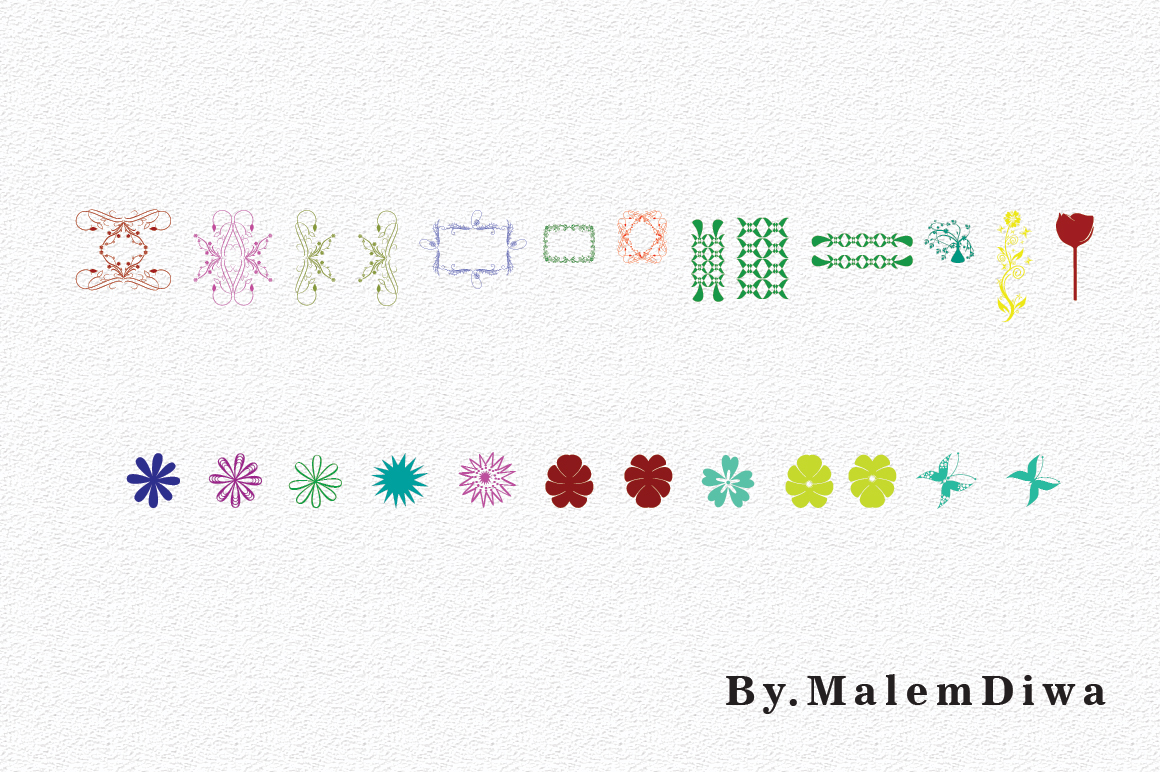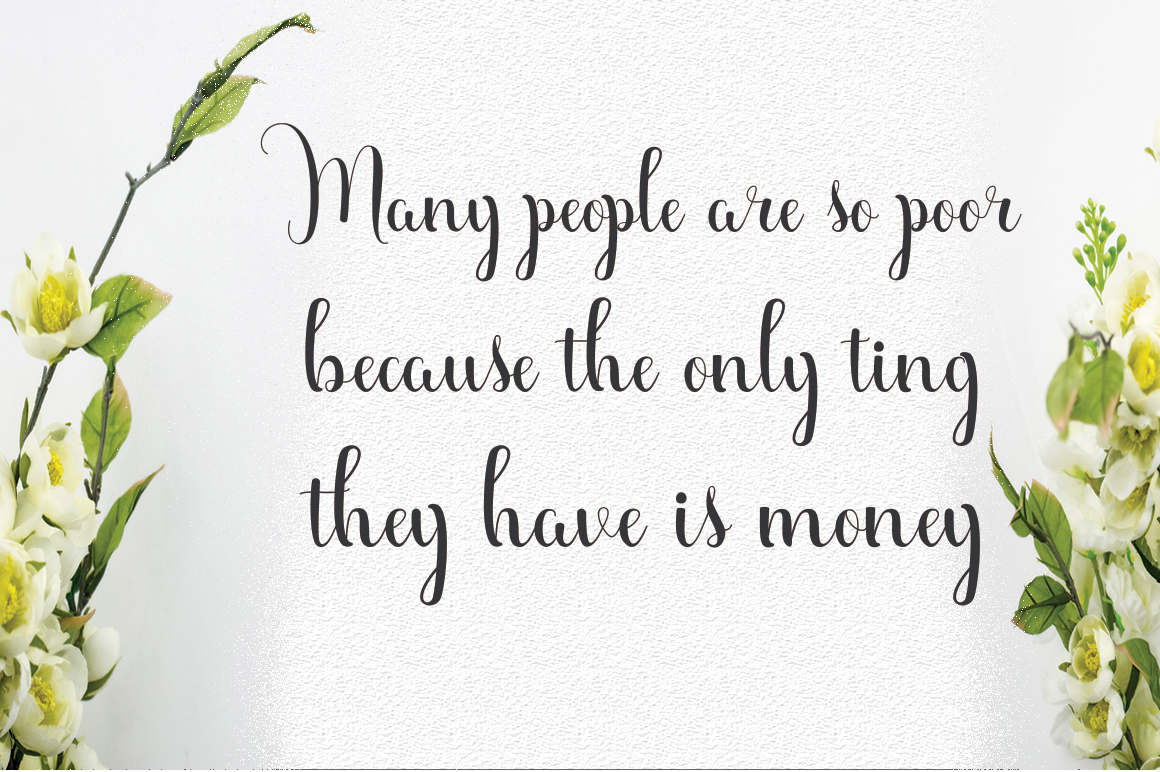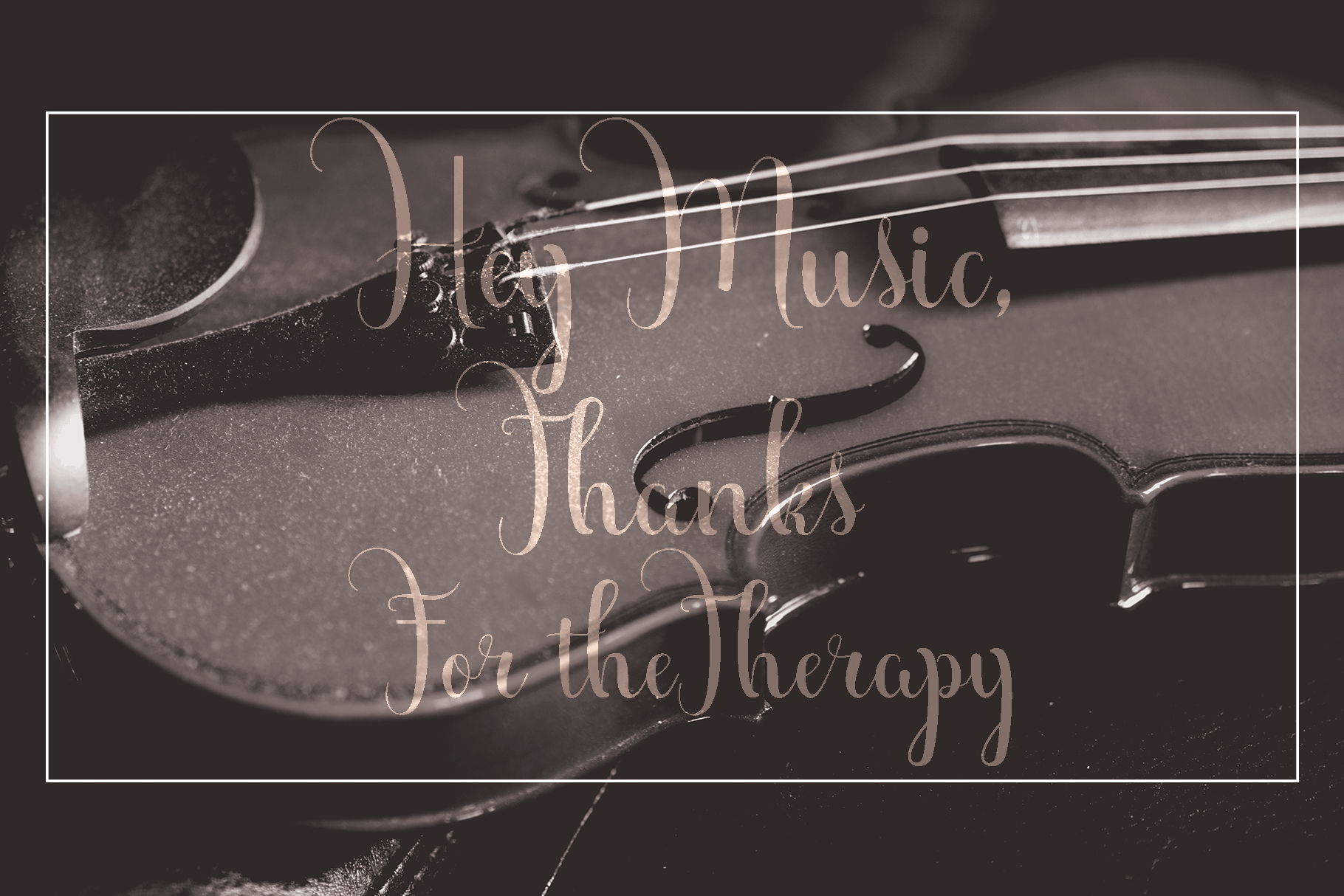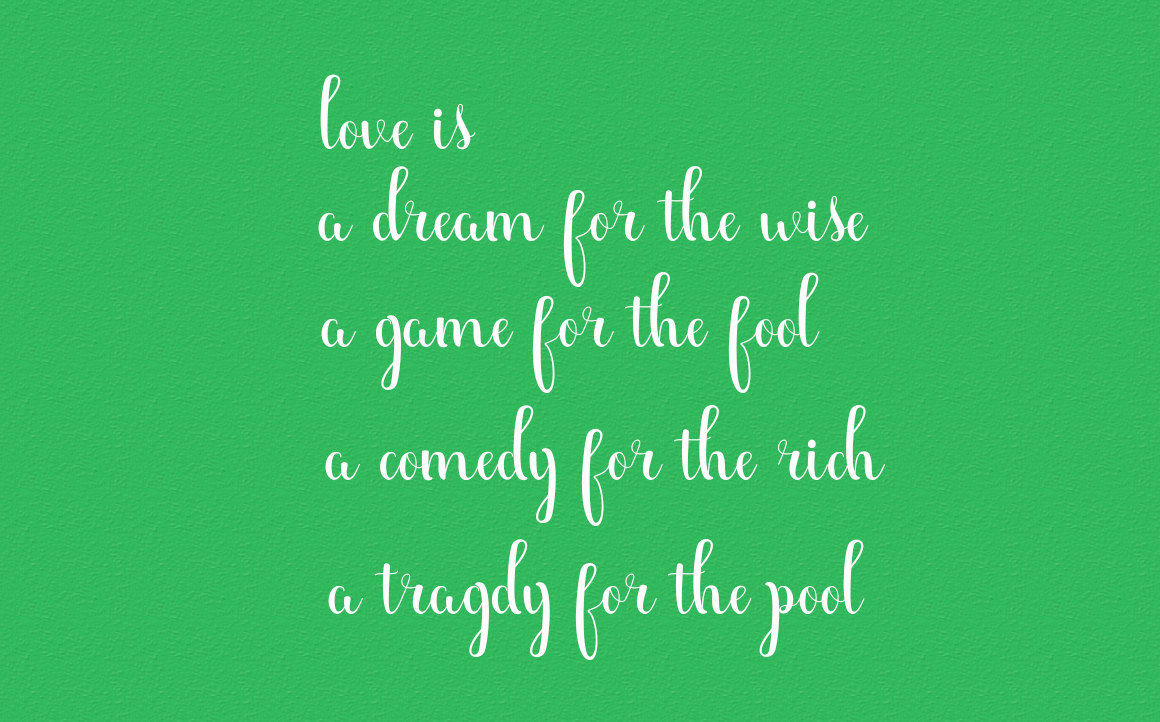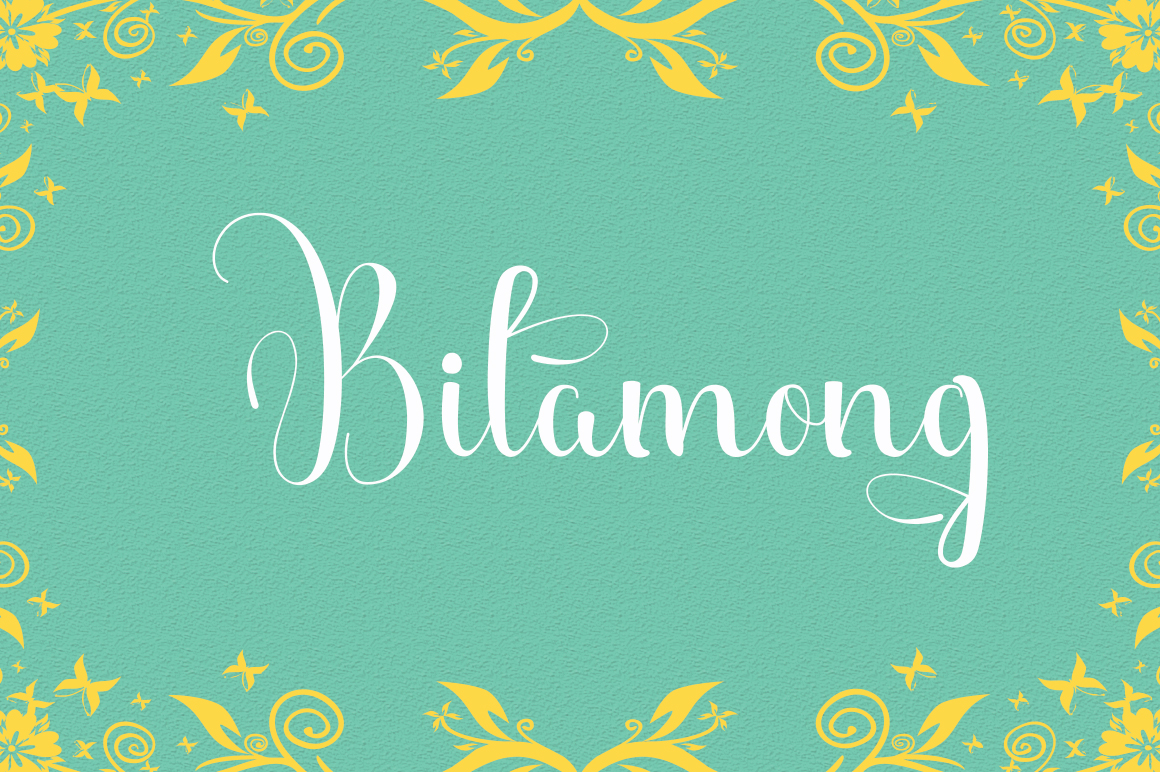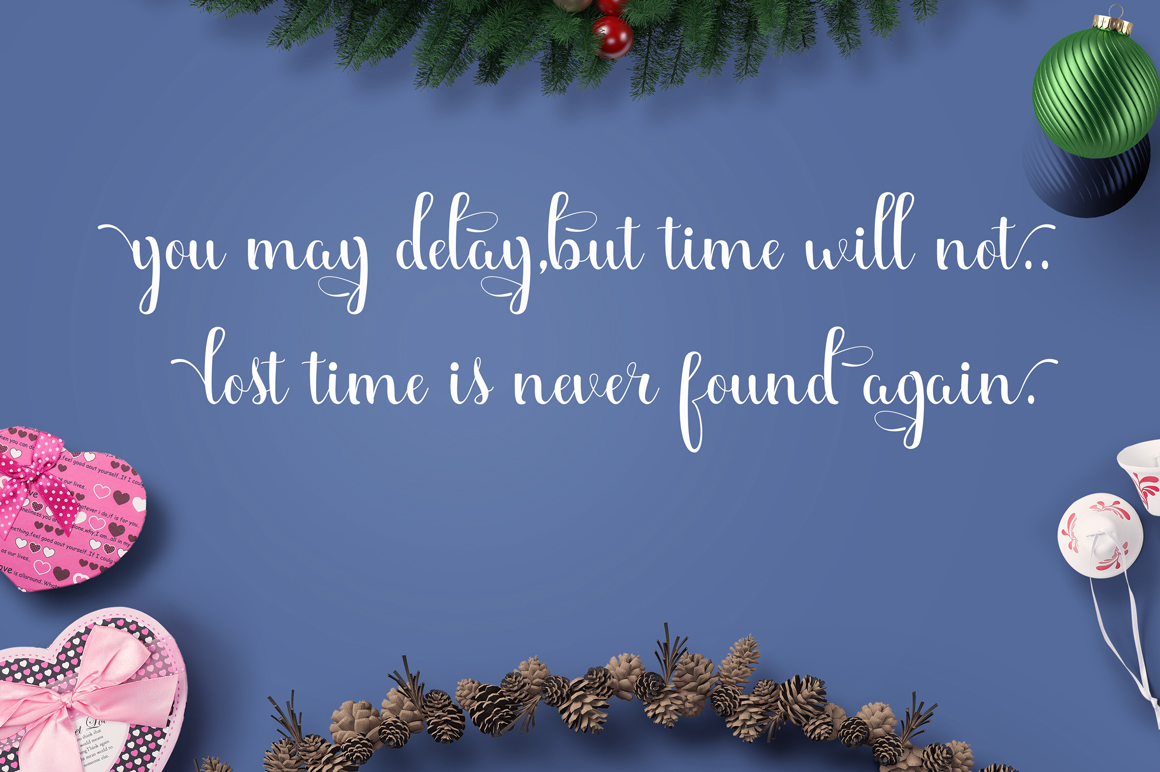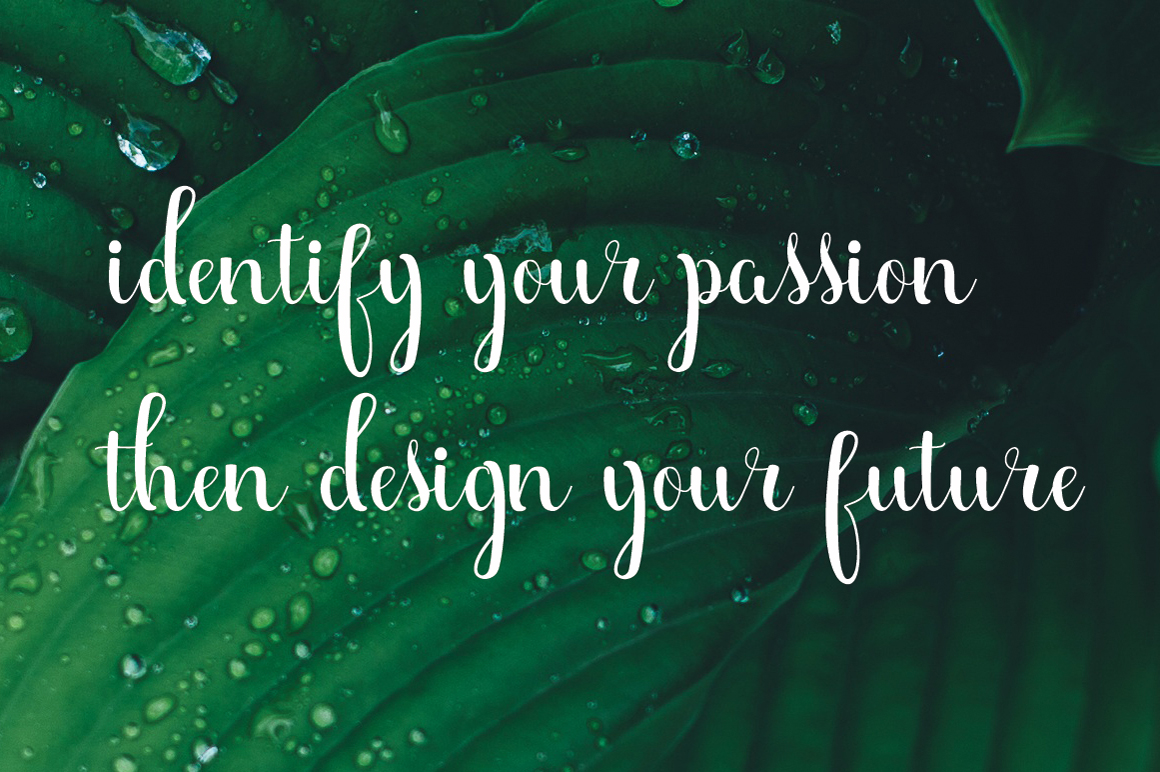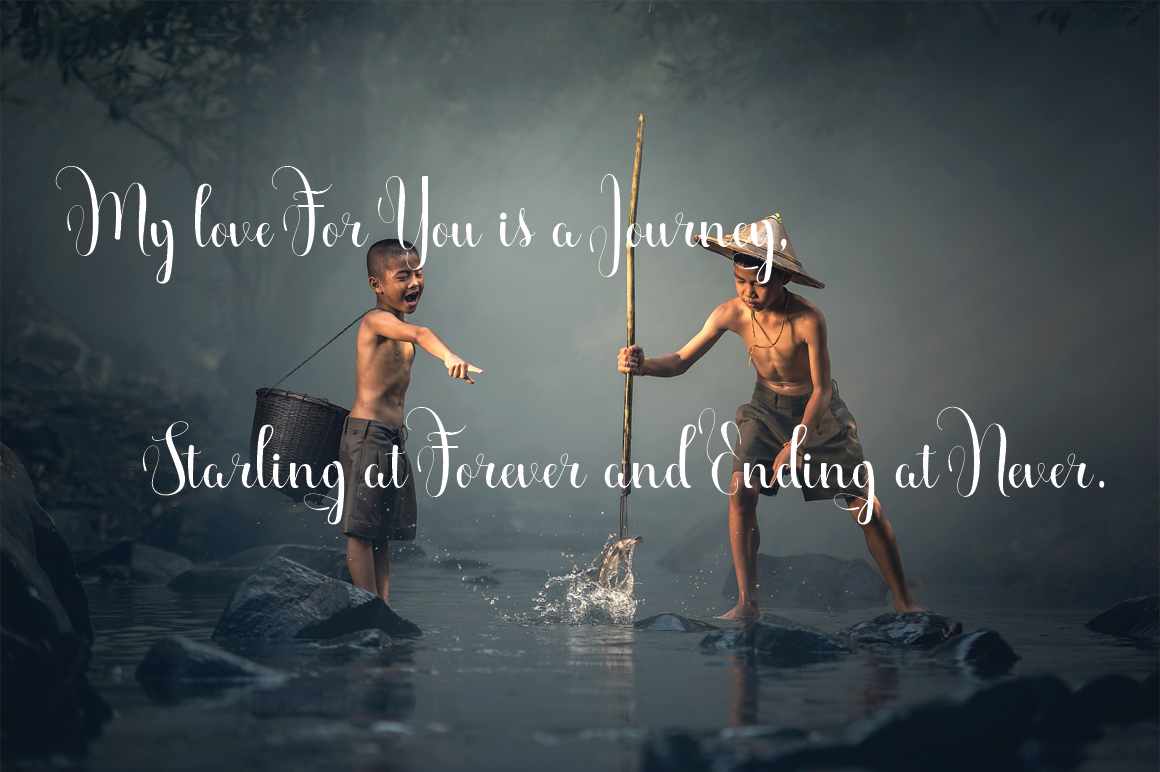
Malemdiwa Font
About Malemdiwa Font
Malemdiwa is a stunning handwritten script, suitable for a wide range of uses. This font was designed to give your designs a gorgeous and feminine appeal with its friendly and high contrast structure.